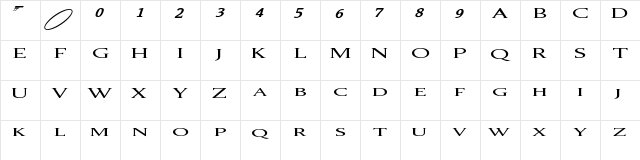
007 GoldenEye Regular
Design Context for 007 GoldenEye Typeface
007 GoldenEye offers clean, dependable letterforms without strong stylistic allegiance, making it a practical choice for designers who need flexibility.
Pro Tip: Use 007 GoldenEye in both headline and body roles to test its range before committing to a single application.